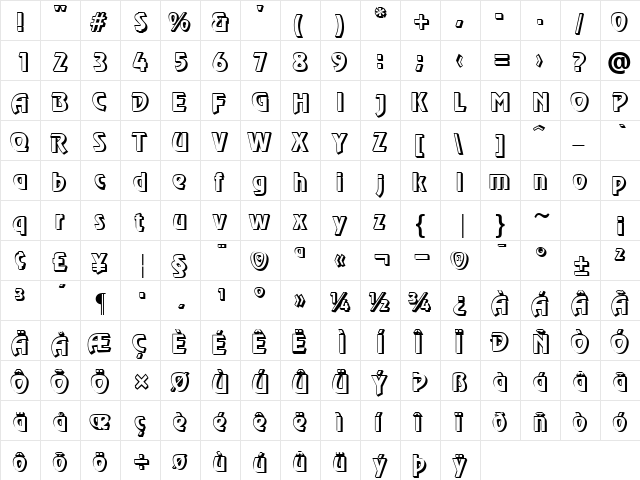
CaptivaOutlineSSK Regular Font Preview
CaptivaOutlineSSK Regular
Design Context for CaptivaOutlineSSK Typeface
CaptivaOutlineSSK brings ornamental detail and strong personality to headlines and identities, where visual impact matters more than quiet functionality.
Font Pairing: Pair with a clean neutral sans-serif for body copy to let CaptivaOutlineSSK's character lead without overwhelming the composition.
Pro Tip: Treat CaptivaOutlineSSK as the centrepiece of your typographic hierarchy. One strong heading set in a decorative face can carry an entire layout.